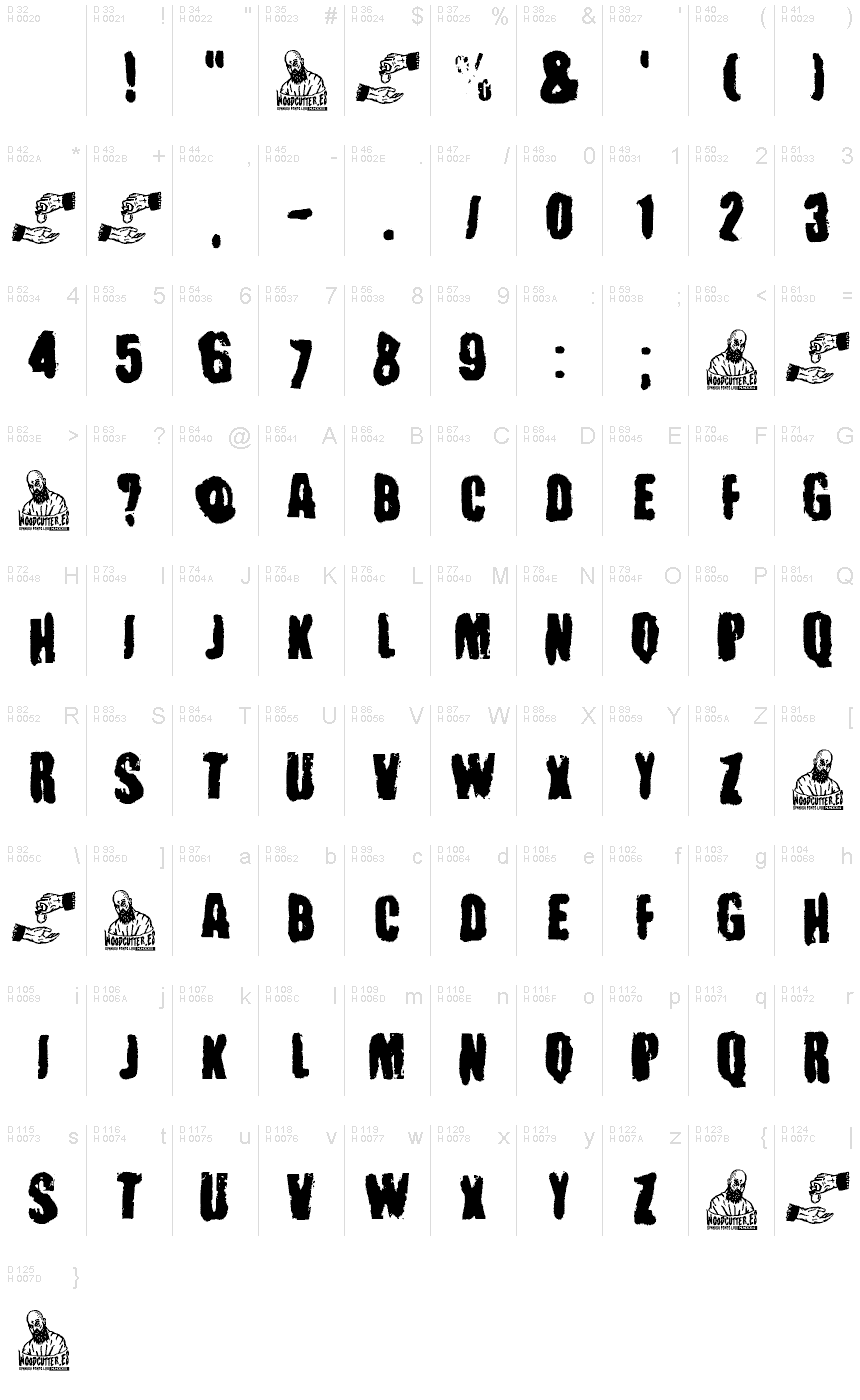
Personal Dealer
Personal Dealer font is an irregular display typeface crafted with great creativity by Woodcutter. The distorted, bold, and condensed font has letters that bring a combination of uniqueness and high style. Inspired by the past, this nostalgic font offers a grunge texture with its distressed appearance. It’s certainly not one of those fonts designed just to be easy on the eyes.
Use Personal Dealer for your party posters, rock band album covers, music concert tickets, personal apparel items, and book covers. The free display font may also look nice on packaging design projects or as part of game-related items.